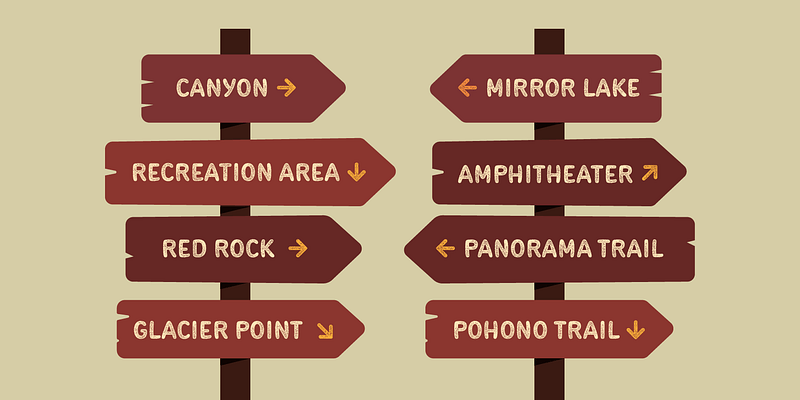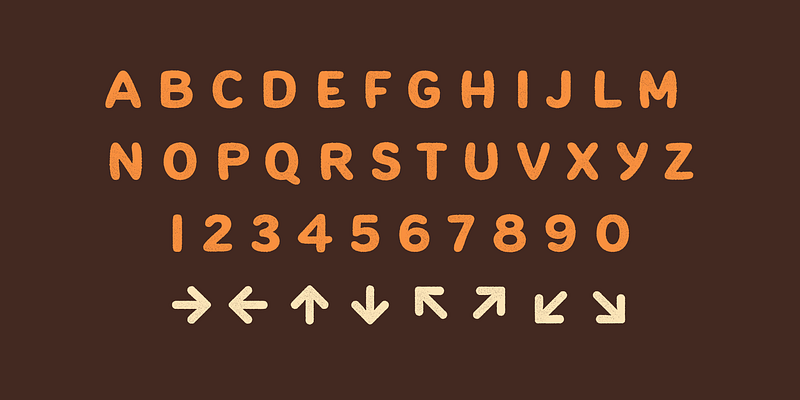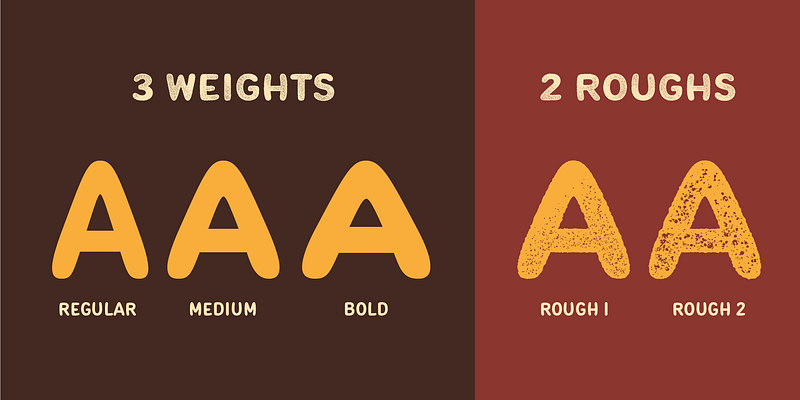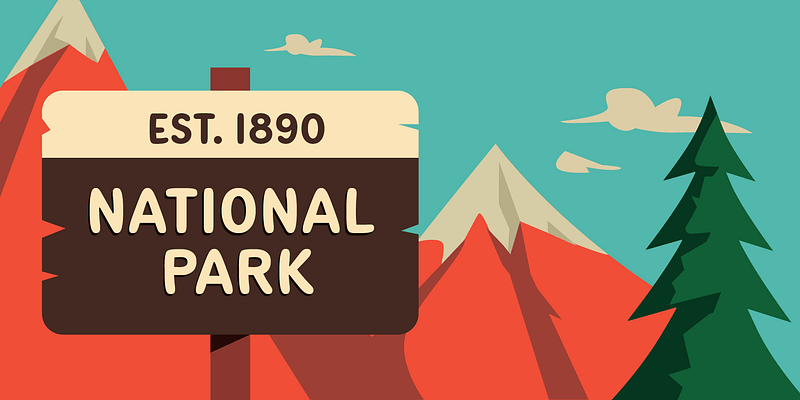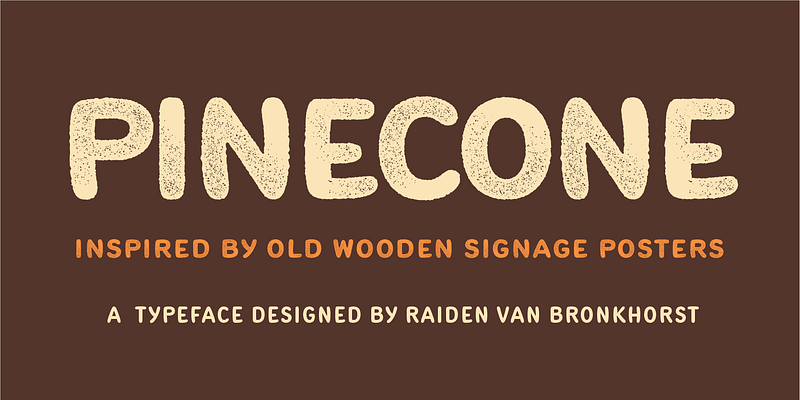
If you have visited a national park in the United States, you may find this vintage signage lettering quite familiar. Commonly appearing on trail signs and park restrooms, the letters were typically cut by router into wood, then painted yellow or white against a brown background. For many the design may evoke memories of camping trips, pitching a tent, campfire sing-alongs, burnt marshmallows, and getting eaten alive by mosquitoes.
As the US National Park System seems to be phasing out handmade signs in favor of manufactured aluminum, MVB Pinecone is now available to preserve this ubiquitous design for posterity.
MVB Pinecone was drawn by Raiden van Bronkhorst based on examples found in Yosemite National Park.